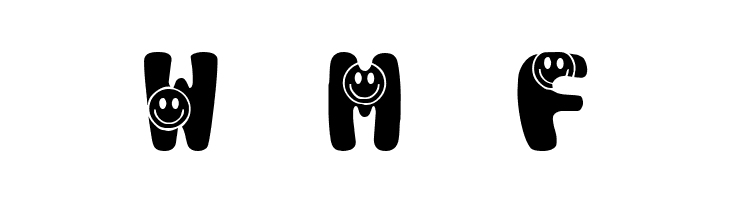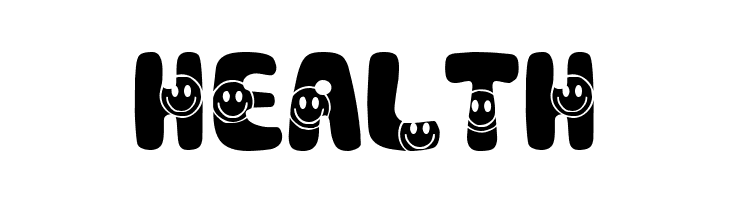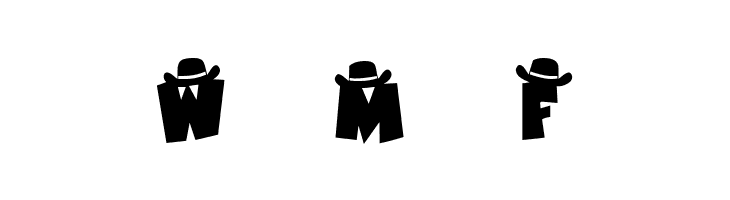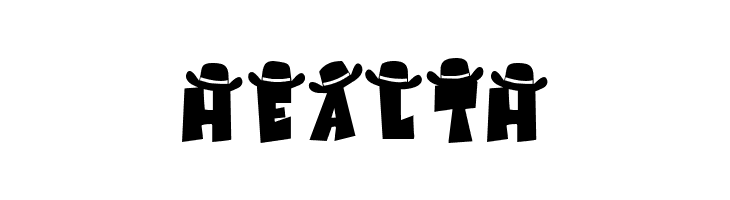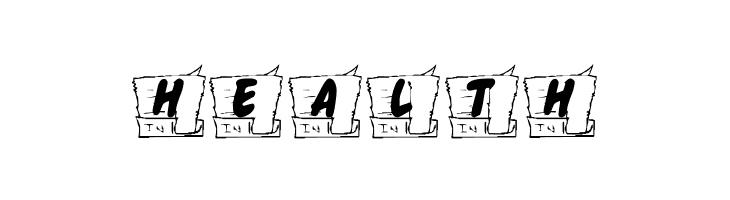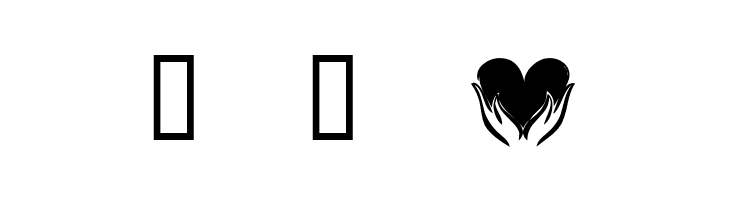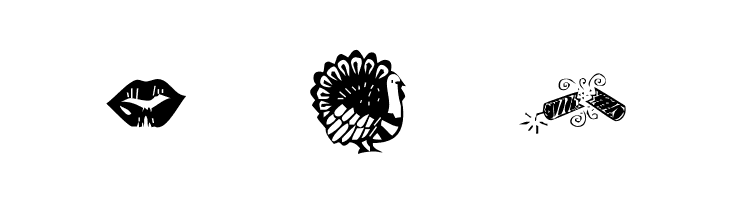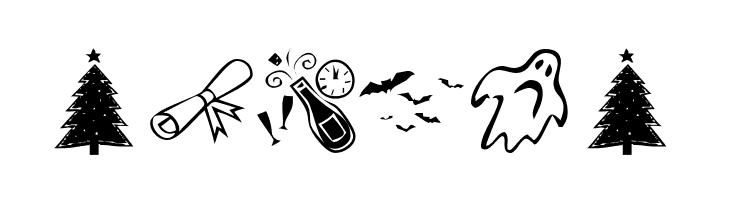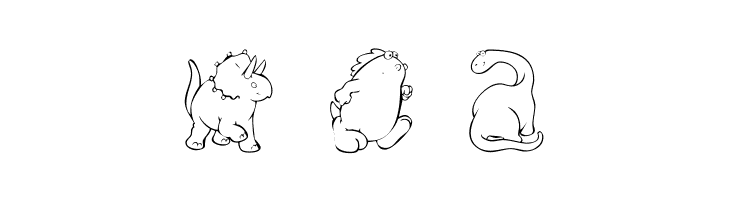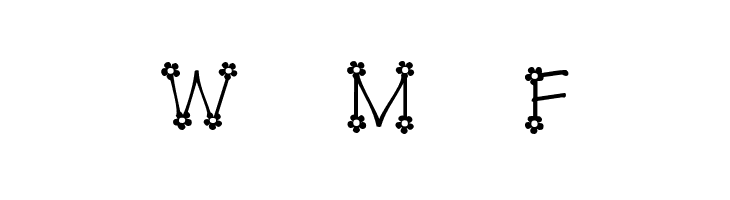
A playful, rounded font with smiling face motifs in each character.
A bold, Western-themed font with cowboy hats on each letter.
A playful, hand-drawn font with characters enclosed in doodle-like frames.
A decorative font with heart-themed symbols perfect for Valentine's designs.
Holiday and celebration-themed dingbat icon font.
A whimsical font with dinosaur illustrations for each character.
A decorative font with floral embellishments on bold, rounded characters.
A decorative font with bold letters and whimsical frog illustrations.
A decorative collection of Valentine's-themed elements with hearts and flowers.
A collection of graduation-themed illustrations in a playful, cartoonish style.